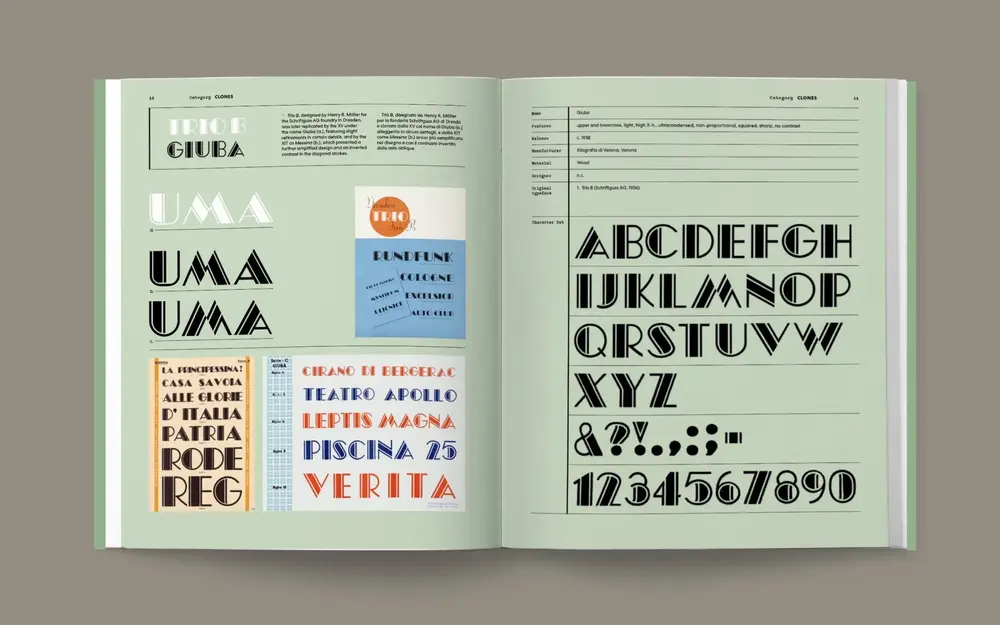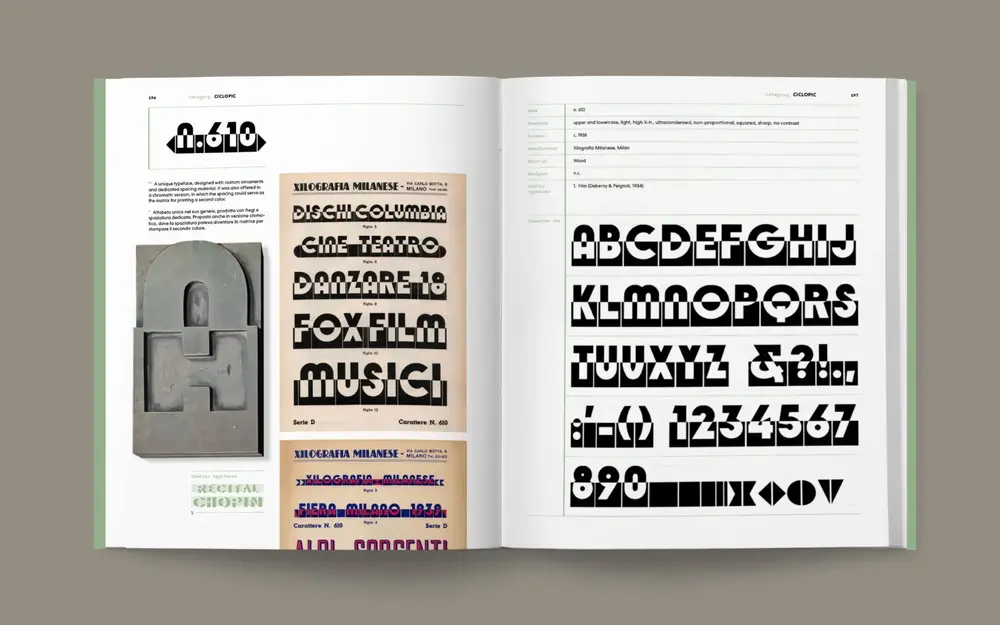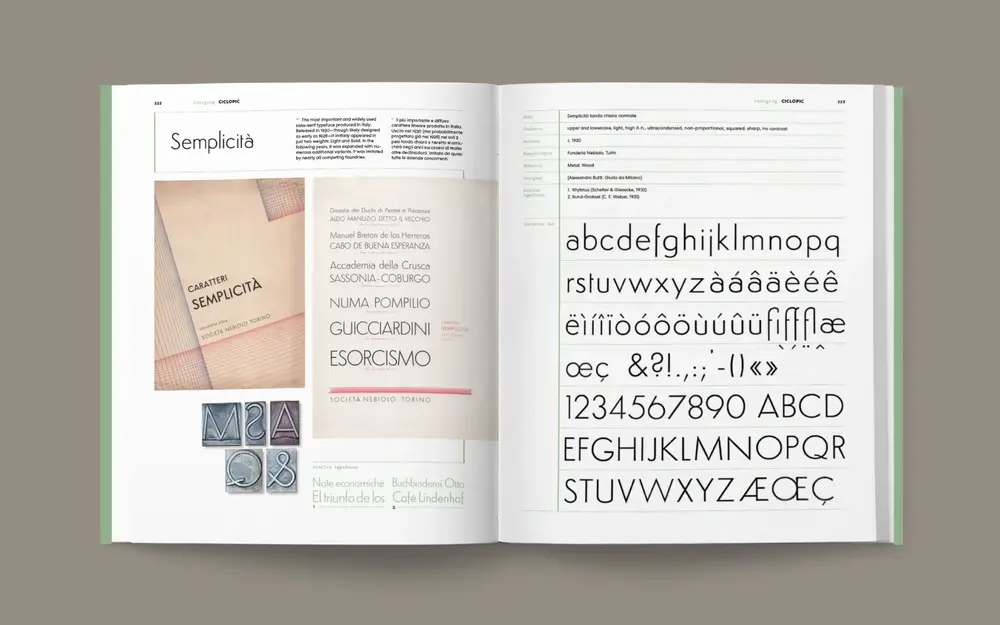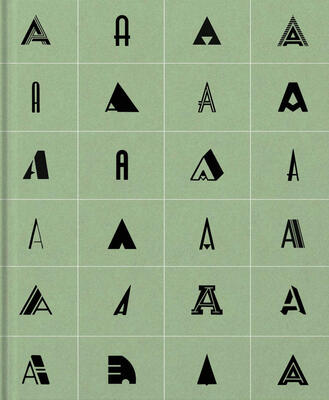
- Released/Published: 2025
- By: Luca Lattuga
- Publisher : Lazy Dog
For at least a dozen years, Luca Lattuga has been collecting and cataloguing metal and wooden movable type produced in Italy between the 1920s and 1940s. During his research, he rediscovered a recurring and consistent style, hitherto little considered, that characterized that period. Although widespread at the time, this style, which originated in the printing workshops, remained in the shadows for decades.
These lesser-known typefaces coexisted alongside the famous types from historic foundries, such as Nebiolo and Reggiani, surviving thanks to their versatility and affordability and enjoying spontaneous and widespread popularity even in the most isolated provinces. They remained in use until the 1960s or 1970s, effectively lasting until the end of the era of movable type printing. They were widely used in advertising, flyers, posters, book covers, and magazine headlines. They followed European trends toward more modern forms and represented a fascinating vernacular expression, entirely Italian, of the international taste of the time.
The book contains over one hundred specimens, divided and grouped into categories and subcategories. It is accompanied by a testimony from the book’s editors, Veronica Bassini and Luca Lattuga, a historical analysis by Carlo Vinti, and a technical study by Luciano Perondi. The work is completed by in-depth profiles of some of the key figures of that era: Guido Modiano, Ruggero Zuliani, Francesco and Antonio Tocchio, and a gem by Enrico Tallone.
Texts: Veronica Bassini, Luca Lattuga, Luciano Perondi, Carlo Vinti
Foreword: Riccardo Olocco
Book Design: Luca Lattuga